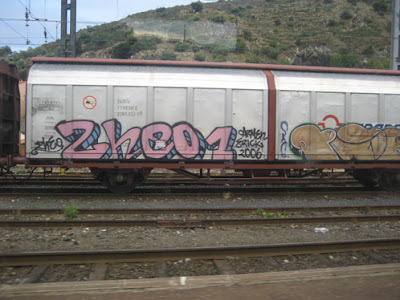
CROSS GAME for sure can be fun. Not always stays, you may have your graffiti alphabets remove able, if you do carve your alphabets in hard but sculpt able material your graffiti alphabets can stay on as carved works but also can be treat like graffiti works. Coz graffiti alphabets meant all about alphabets itself no matters how its made, being drawn or sculpted.
That is why this picture can be presumed as sampler. As we can see, the carved alphabets attach by the wall, and it’s gonna remain as one of graffiti alphabets that engrave on the wall. But if its remove some where still in its form, so, in another place that piece of carved wood will be some other graffiti alphabets again, in another wall.